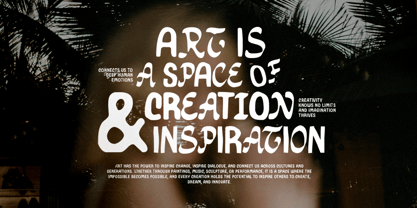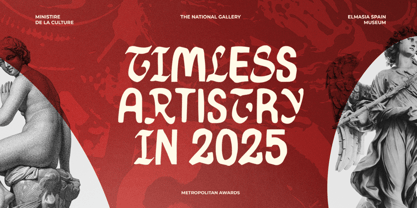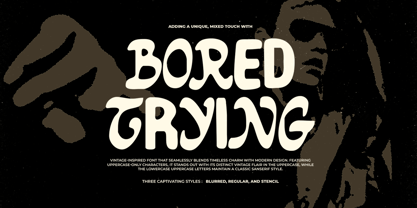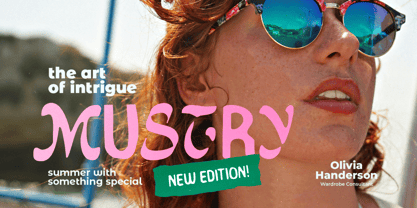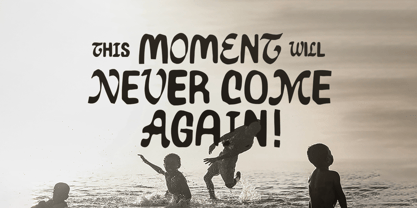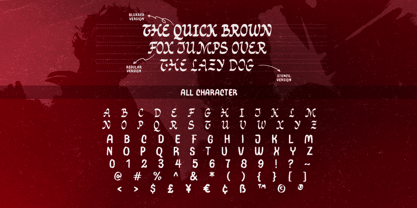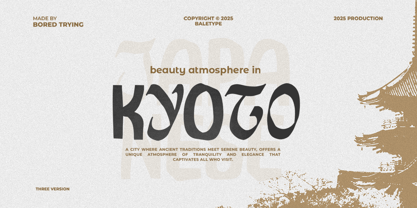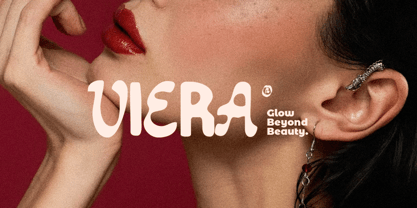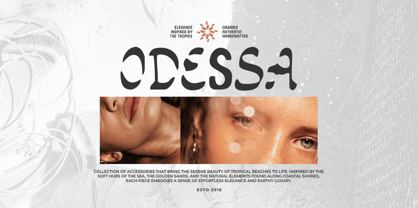
Bored Trying
by Sarid Ezra
The Bored Trying Font Family was designed by Sarid Ezra and published by Sarid Ezra. Bored Trying contains 3 styles and family package options. More about this family
Bored Trying is a mixed font with blackletter as the uppercase and sans as the lowercase. With rough and handmade looks, this font suitable for branding, poster, quotes, and any media that need natural and organic touch. This font comes with three styles that you can choose between Regular, Blurred, and Stencil mode. This font also support multi language.
Designers: Sarid Ezra
Foundry: Sarid Ezra